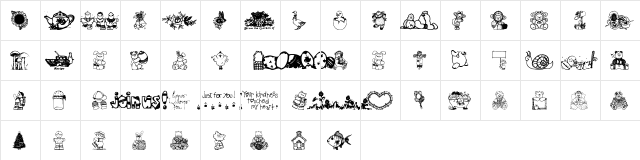
Little cuties Regular Font Preview
Little cuties Regular
Design Context for Little cuties Typeface
Little cuties is a composed and adaptable typeface that performs quietly and consistently across a wide range of design contexts.